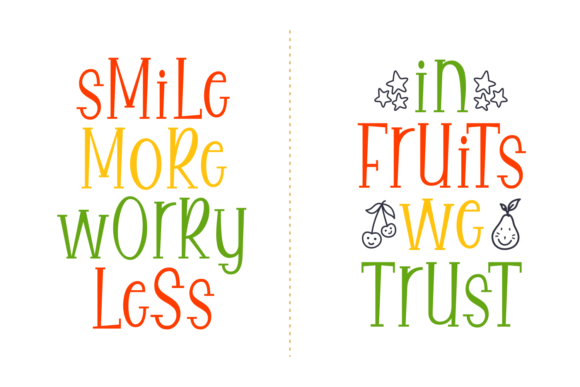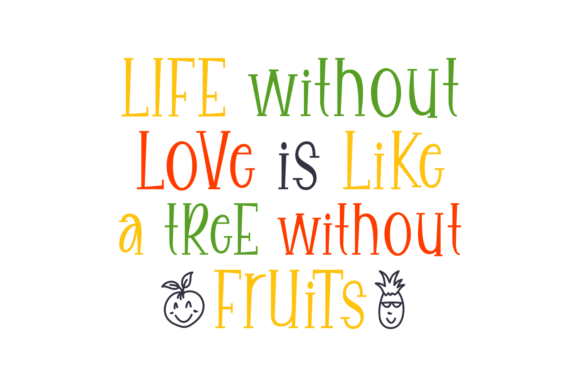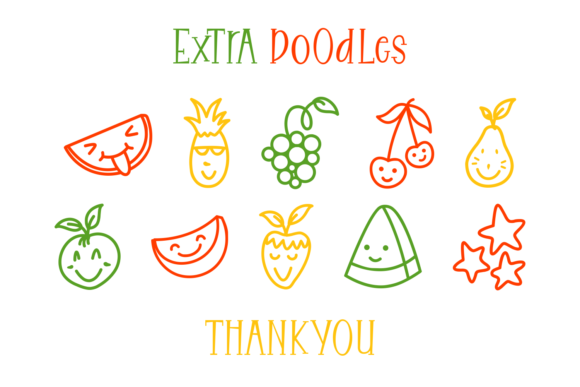
Eitaro Font: Adding a Playful Touch to Your Designs
In the world of typography, fonts play a crucial role in conveying the tone and personality of a design. For designers and crafters looking to add a playful touch to their projects, the Eitaro font is an excellent choice. This charming serif font is designed to bring a fun feel to your designs while maintaining perfect readability.
The Characteristics of Eitaro Font
The Eitaro font is a unique and creative typeface that stands out from the crowd. Its characters are carefully crafted to have a fun and lively feel, making it perfect for designs that require a playful touch. The font’s serif style adds a touch of elegance and sophistication, balancing out its playful nature.
Perfect Readability
One of the key features of the Eitaro font is its perfect readability. The font’s designer has carefully crafted each character to ensure that it is clear and easy to read, even at small sizes. This makes it an excellent choice for designers who want to add a playful touch to their designs without sacrificing legibility.
Fun and Food-Related Doodles
What sets the Eitaro font apart from other fonts is the inclusion of fun and food-related doodles. These doodles are designed to give your designs that extra touch of personality and whimsy. Whether you’re designing a menu, a brochure, or a social media post, these doodles can help you add a playful and creative element to your design.
Use Cases for Eitaro Font
The Eitaro font is a versatile typeface that can be used in a variety of design projects. Here are some use cases where the Eitaro font can shine:
- Food blogs and recipes: The Eitaro font’s food-related doodles make it a perfect choice for food blogs and recipes. You can use the font to add a playful touch to your recipe headers, ingredient lists, and cooking instructions.
- Restaurant menus: The Eitaro font’s playful and elegant style makes it an excellent choice for restaurant menus. You can use the font to create eye-catching menu headers, descriptions, and specials.
- Social media posts: The Eitaro font’s fun and playful style makes it perfect for social media posts. You can use the font to create engaging and creative posts that stand out from the crowd.
- Crafting and DIY projects: The Eitaro font’s whimsical style makes it a great choice for crafting and DIY projects. You can use the font to add a personal touch to your project instructions, labels, and packaging.
Tips for Using Eitaro Font
Here are some tips for using the Eitaro font in your designs:
- Mix and match: Don’t be afraid to mix and match the Eitaro font with other fonts to create a unique and creative look.
- Use doodles sparingly: While the Eitaro font’s doodles are fun and creative, it’s essential to use them sparingly to avoid overwhelming your design.
- Experiment with colors: The Eitaro font looks great in a variety of colors. Experiment with different colors to find the perfect combination for your design.
The Eitaro font is a playful and elegant serif font that can add a fun touch to your designs. With its perfect readability and fun food-related doodles, it’s an excellent choice for designers and crafters looking to create engaging and creative designs. Whether you’re designing a menu, a brochure, or a social media post, the Eitaro font is a versatile typeface that can help you achieve your design goals.